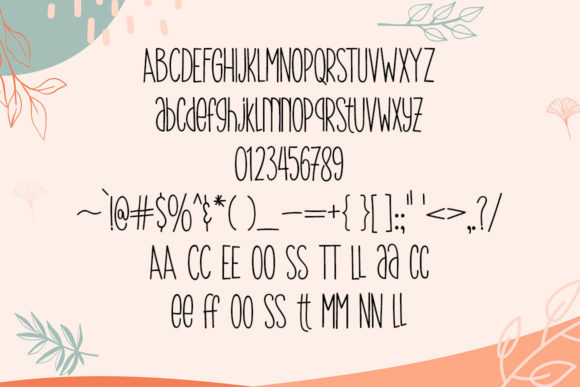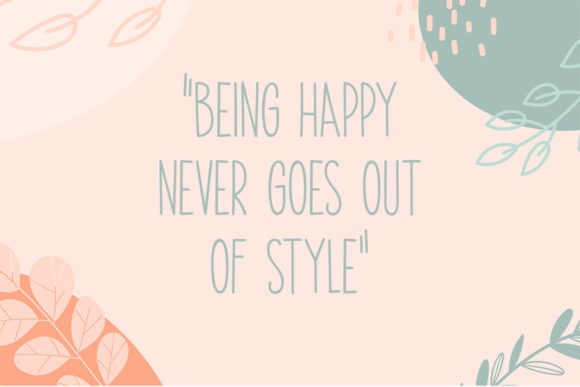
Sweet Writing Font
db-ku.com - Script & Handwritten -- Sweet Writing is a clean, simple and smart looking handwriting font. It is ideal for wedding invitations, weddings, brand names, wall hangings, romantic movie titles, Valentines or Christmas greetings.